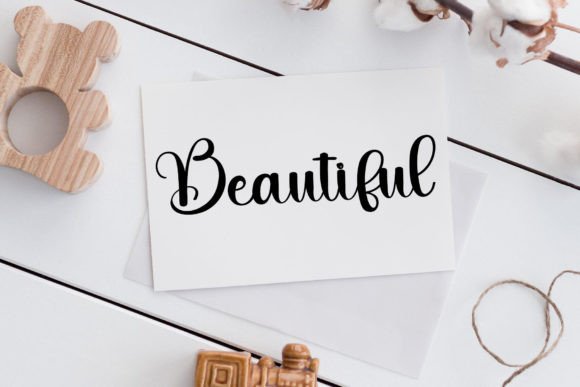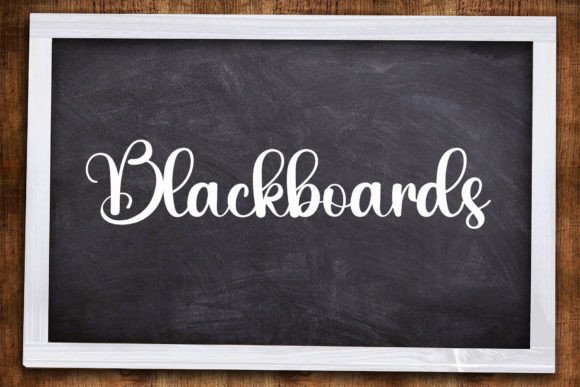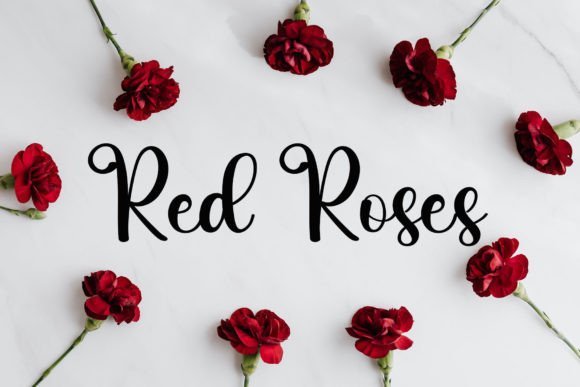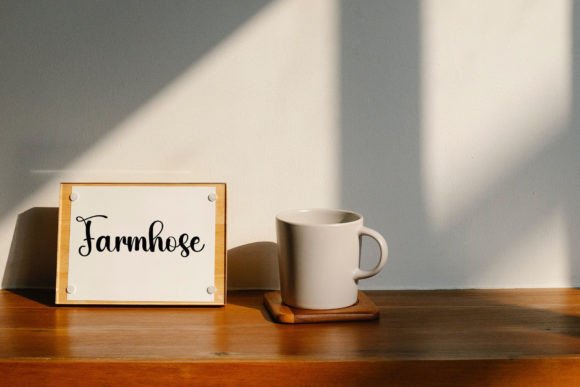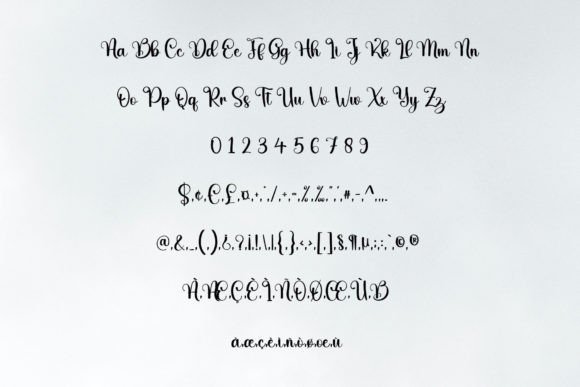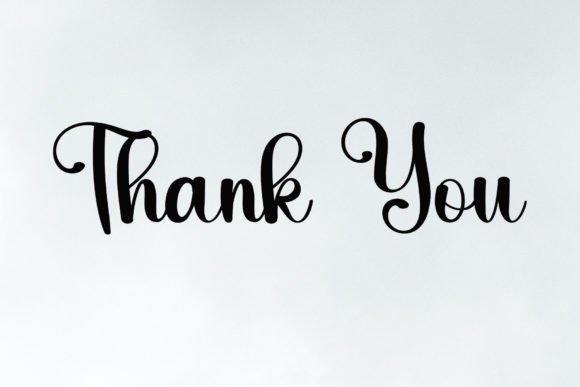
Introducing Behind Font: Elevate Your Designs with Elegance
Are you on the hunt for a font that adds a touch of luxury and sophistication to your design projects? Look no further than Behind Font, a sweet and beautiful handwritten font that is sure to capture the hearts of designers and crafters alike. With its unique charm and dancing characters, Behind Font is the perfect addition to any design project, from branding and packaging to wedding invitations and digital marketing materials.
The Story Behind Behind Font
Behind Font is more than just a font – it’s a way to add a personal touch to your designs. Its elegant, cursive script features characters that dance along the baseline, creating a sense of movement and fluidity. This beautiful font is perfect for designers who want to add a touch of whimsy and romance to their work. Whether you’re creating a logo, a brochure, or a social media graphic, Behind Font is sure to make your design stand out.
Key Features of Behind Font
• Handwritten elegance: Behind Font features a beautiful, handwritten script that is both elegant and refined.
• Dancing characters: The characters in Behind Font dance along the baseline, creating a sense of movement and fluidity.
• Luxury spark: With its sophisticated and refined design, Behind Font adds a touch of luxury to any design project.
• Versatile: Behind Font is perfect for a wide range of design projects, from branding and packaging to wedding invitations and digital marketing materials.
Why Choose Behind Font?
There are many fonts to choose from, but Behind Font stands out from the rest. Here are just a few reasons why:
• Unique and distinctive: Behind Font has a unique and distinctive look that will set your designs apart from the competition.
• Elegant and refined: The elegant, cursive script of Behind Font is perfect for designers who want to add a touch of sophistication to their work.
• Easy to read: Despite its elegant design, Behind Font is easy to read, making it perfect for body text and headlines.
• High-quality: Behind Font is a high-quality font that is designed to deliver exceptional results.
How to Use Behind Font in Your Designs
Behind Font is easy to use and can be incorporated into a wide range of design projects. Here are a few ideas to get you started:
• Branding and packaging: Use Behind Font to create elegant and sophisticated branding and packaging materials.
• Wedding invitations: Add a touch of romance and whimsy to your wedding invitations with Behind Font.
• Digital marketing materials: Use Behind Font to create eye-catching digital marketing materials, such as social media graphics and email newsletters.
• Stationery and cards: Add a personal touch to your stationery and cards with Behind Font.
Tips and Tricks for Getting the Most Out of Behind Font
Here are a few tips and tricks for getting the most out of Behind Font:
• Experiment with different sizes and colors: Behind Font looks great in a variety of sizes and colors, so don’t be afraid to experiment.
• Pair with other fonts: Behind Font pairs well with other fonts, so try combining it with a sans-serif font for a striking contrast.
• Use it sparingly: While Behind Font is a beautiful font, it can be overwhelming if used too much. Use it sparingly to add a touch of elegance to your designs.
Behind Font is a beautiful and elegant handwritten font that is sure to add a touch of luxury and sophistication to any design project. With its unique charm and dancing characters, Behind Font is the perfect addition to any designer’s toolkit. Whether you’re creating branding and packaging materials, wedding invitations, or digital marketing materials, Behind Font is the perfect choice. So why wait? Download Behind Font today and start elevating your designs with elegance!